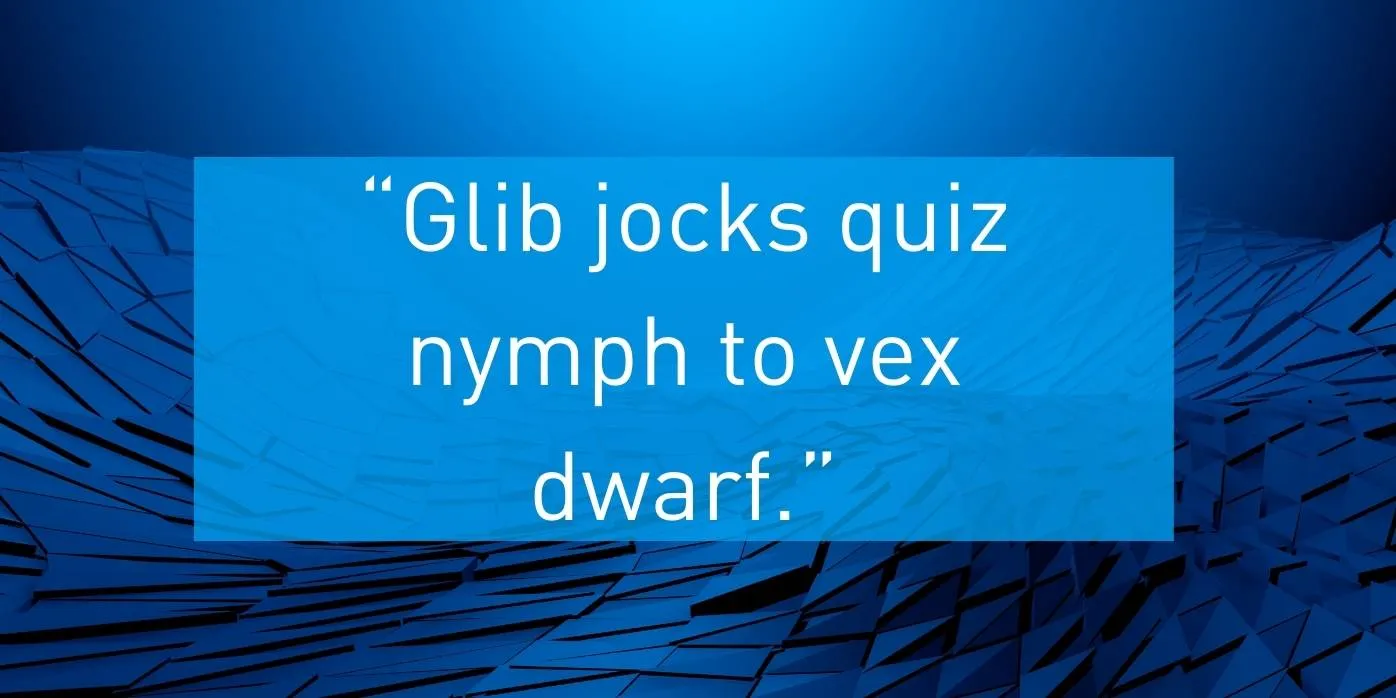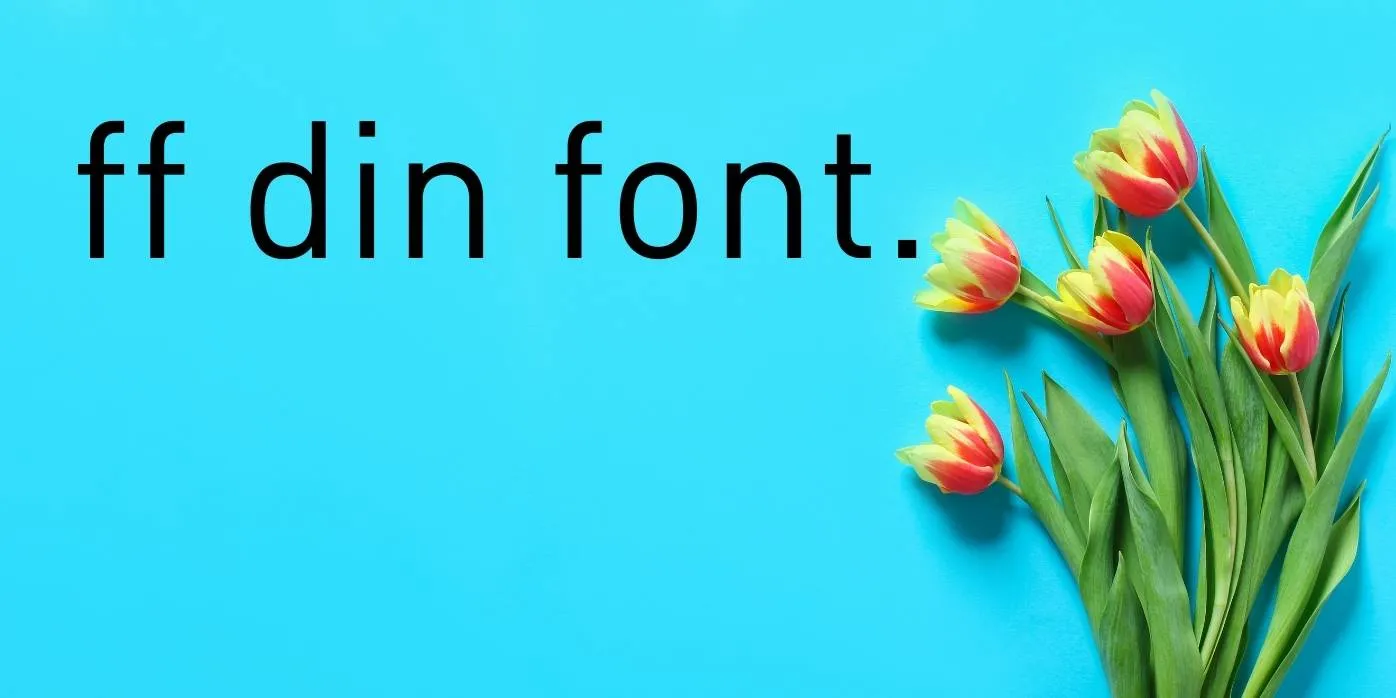
FF Din Font
Let’s introduce a very stylish and gorgeous font family known by¬† FF Din F0nt. This typeface belongs to the Sans-Serif font family. In 1995, this staggering font was designed by very brilliant designer Albert-Jan Pool. This classy font is available in twenty unique styles.
This font is actually designed on the basis of German standard organization Font DIN 1451. It is available in 5 different popular weights that increase its popularity. This attractive font provides advanced features. It supported a huge variety of international languages which is the reason behind its popularity all over the world.
This tremendous typeface is used for other software like Adobe, and Linix. This soft-looking font is best for all of your small and lengthy paragraphs and screen designing. If you want to get a good response and achieve success then you will use this font with the pairing of Didot Font. This font family has extraordinary features as compared to other typefaces.
In order to additional features, this font provides the facility of an online generator. You can easily create different graphics designs by using this online tool. This marvelous font is used for its Arabic font. The first choice of different companies is to use this cozy font in all of their projects related to various designing fields.